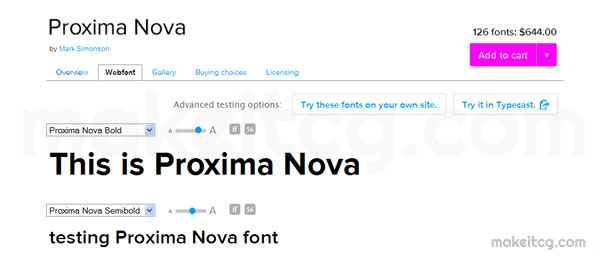
Gotham Equivalent Google Font. When you subscribe to my weekly type roundup newsletter, i’ll send you a free pdf with a list of my predictions. Closest match on adobe fonts (typekit) * proxima nova;
Closest free alternative on google fonts. 20,000+ best fonts download gotham celebrates the attractive and unassuming lettering of the city. Gotham font may be used smartly to creating posters signs and much more.
The Font Is Nearly Identical To Gotham Which Is Used In Posters And.
Montserrat is the closest google font. The fantastic montserrat is another great and similar font to gotham. The font is suitable for body copy, a perfect replacement for the gotham book font version.
While not free, aaux next is an extensive font you can license without a subscription but is also available through typekit. Yes, there are many similar fonts in google fonts but raleway font and montserrate font are the most similar fonts in google. Hamlin is inspired by classic geometric fonts similar to gotham.
Gotham Through The Typography Service Is Optimized For Web And Produces A Solid Rendered Output.
Montserrat, a font family somewhat similar to gotham, can be downloaded free from google fonts. Bringing fonts that you into your latest project is far simpler than you anticipate and have rights. I created a quick comparison of the three fonts.
You Can See Montserrat In The Middle.
Montserrat isn’t just free, it’s one of google’s own web fonts so you can use it how you like on any website. This font family has many variations of fonts and also has web font versions but it has to be purchased, so i have found montserrat to be. This modern sans serif is a contemporary take on the minimalist design trend.
Raleway Is The Most Similar Font To Gotham In The Google Fonts Directory.
Use it on brand identities, headlines, and many more projects. The fonts that i found that are most similar to gotham are: I believe that it would be the best fit for gilroy under one condition.